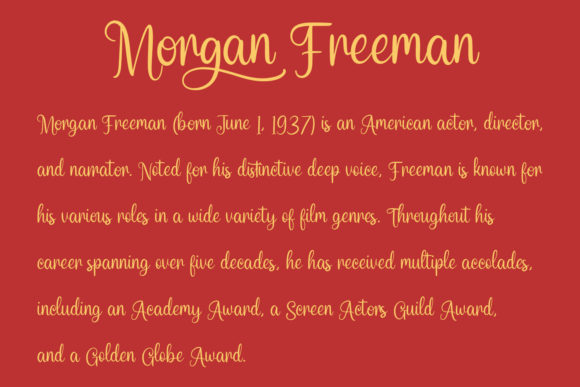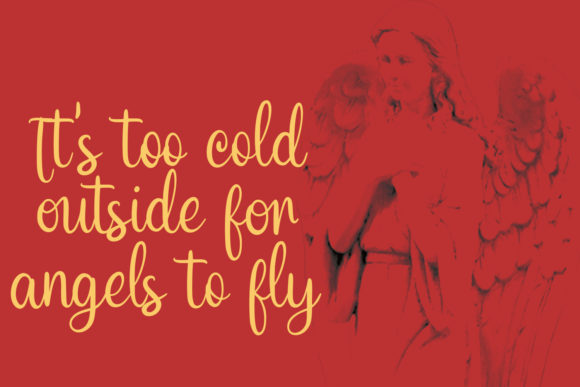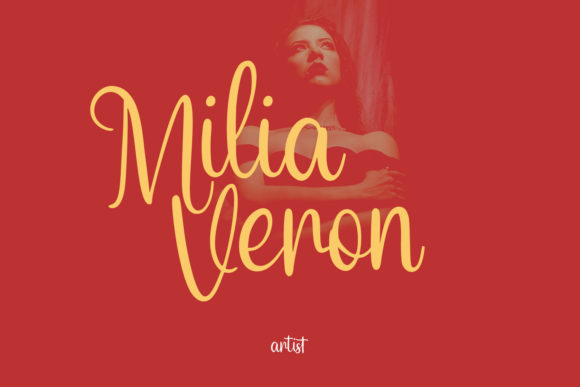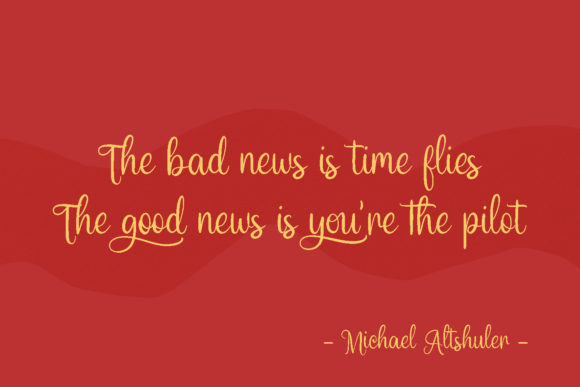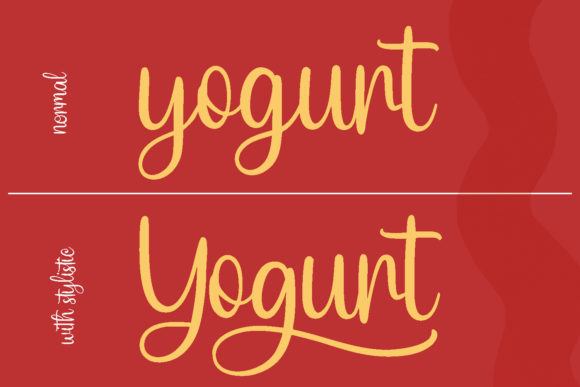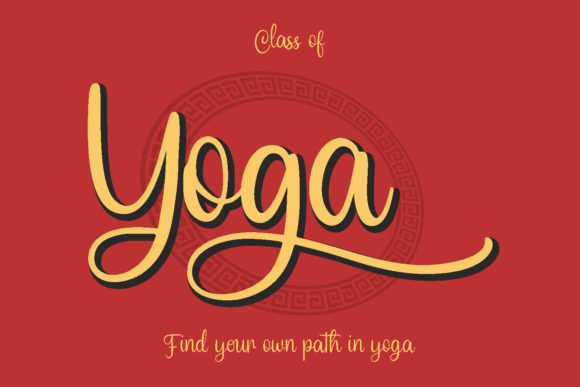
Introducing Chuglet Font: Elevate Your Designs with Elegance and Sophistication
In the world of typography, fonts play a crucial role in conveying the tone and personality of a brand or design. For designers and crafters looking for a stylish and delicate script font, Chuglet Font is an excellent choice. This beautiful font is perfect for a variety of applications, including product packaging, branding projects, magazine covers, social media, wedding designs, and more.
What is Chuglet Font?
Chuglet Font is a modern script font that exudes elegance and sophistication. Its delicate strokes and curves make it an ideal choice for designs that require a touch of refinement and luxury. The font is carefully crafted to provide a unique and distinctive look that sets it apart from other fonts.
Key Features of Chuglet Font
• Stylish and Delicate: Chuglet Font boasts a stylish and delicate appearance, making it perfect for designs that require a touch of elegance.
• Script Font: As a script font, Chuglet Font is ideal for designs that require a personal and creative touch.
• Highly Versatile: Chuglet Font can be used for a wide range of applications, from product packaging to social media designs.
• Easily Readable: Despite its delicate nature, Chuglet Font is easily readable, making it perfect for body text and headlines.
Use Cases for Chuglet Font
Chuglet Font is an incredibly versatile font that can be used for various design projects. Here are some use cases where Chuglet Font shines:
• Product Packaging: Add a touch of elegance to your product packaging with Chuglet Font. It’s perfect for luxury brands, cosmetics, and food products.
• Branding Projects: Establish your brand identity with Chuglet Font. Its unique and distinctive look makes it an excellent choice for logos, business cards, and letterheads.
• Magazine Covers: Create eye-catching magazine covers with Chuglet Font. Its stylish and delicate appearance makes it perfect for fashion, lifestyle, and beauty magazines.
• Social Media: Elevate your social media designs with Chuglet Font. Use it for graphics, quotes, and promotional materials to make your brand stand out.
• Wedding Designs: Make your wedding designs more romantic and elegant with Chuglet Font. It’s perfect for wedding invitations, save-the-date cards, and ceremony programs.
Why Choose Chuglet Font?
With so many fonts available, why choose Chuglet Font? Here are some reasons why designers and crafters love Chuglet Font:
• Unique and Distinctive: Chuglet Font has a unique and distinctive look that sets it apart from other fonts.
• Elegant and Sophisticated: Chuglet Font exudes elegance and sophistication, making it perfect for luxury brands and high-end designs.
• Highly Versatile: Chuglet Font can be used for a wide range of applications, making it a valuable addition to any designer’s font collection.
• Easily Readable: Despite its delicate nature, Chuglet Font is easily readable, making it perfect for body text and headlines.
In conclusion, Chuglet Font is a stylish and delicate script font that is perfect for designers and crafters looking to add a touch of elegance and sophistication to their designs. Its highly versatile nature makes it suitable for a wide range of applications, from product packaging to social media designs. With its unique and distinctive look, Chuglet Font is an excellent choice for anyone looking to elevate their designs and make a lasting impression.